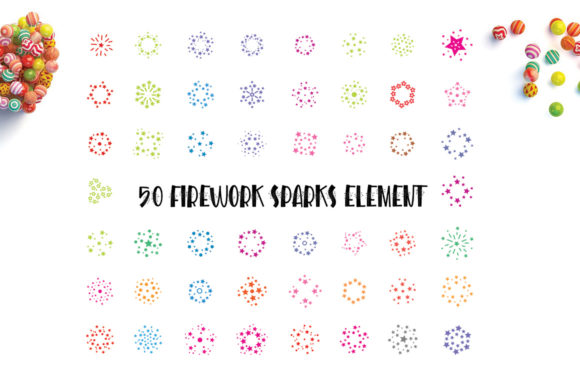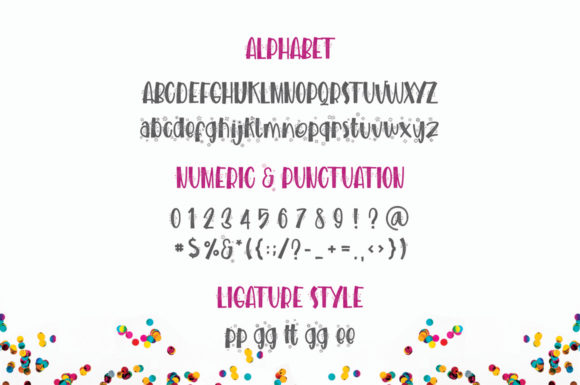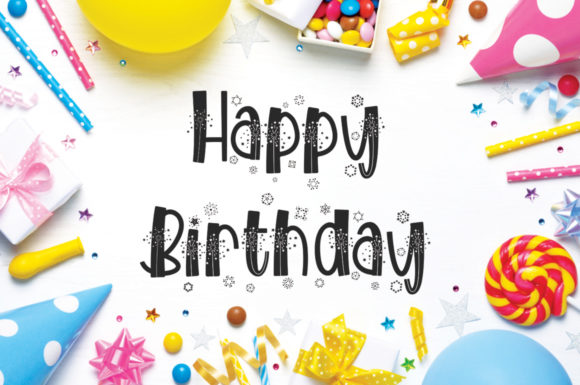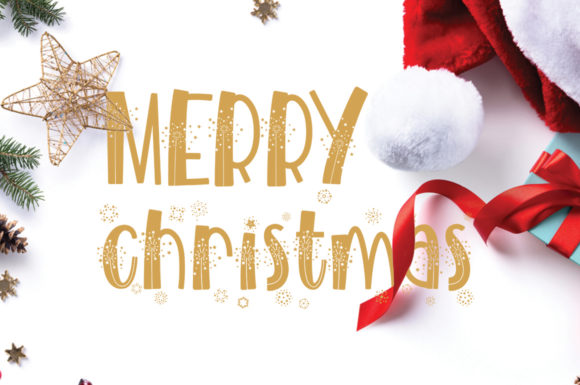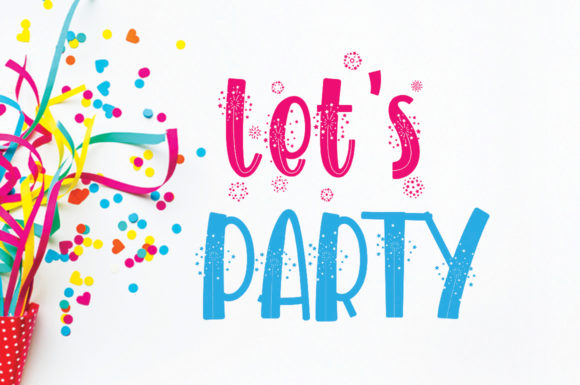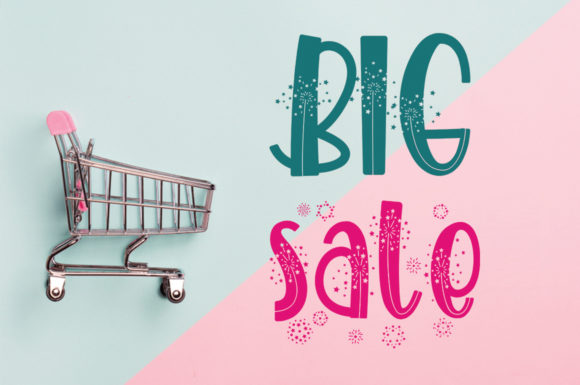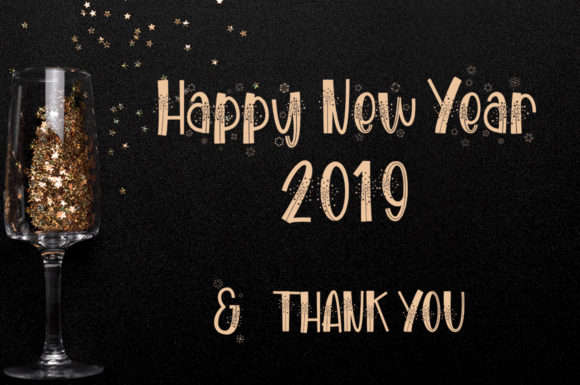
Blinkies Font
About Blinkies Font
Introducing “The Blinkies,” a cheerful handwritten font designed to infuse a fun and playful feel into your projects. This font is not just a typeface; it’s a design asset crafted with a delightful and whimsical touch, making it perfect for designs that need a sparkle of happiness.
“The Blinkies” stands out with its cheerful and handwritten style, creating a playful and lively vibe. Whether you’re working on invitations, posters, greeting cards, or any design that requires a touch of happiness, this font delivers with its fun and animated demeanor.
Its versatility allows “The Blinkies” to adapt seamlessly to different design contexts. Greeting cards and invitations designed with this font exude joy and celebratory energy. Posters and other promotional materials benefit from the font’s playful script, adding a whimsical touch to the overall design.
“The Blinkies” is a delightful choice for a wide range of applications, bringing a sense of happiness and charm to your projects. Its animated and handwritten feel makes it a design companion that adds a sparkle of joy to your creative endeavors.
In summary, “The Blinkies” is more than just a font; it’s a design asset that brings a cheerful and playful handwritten style to your projects. Embrace its fun and animated look for invitations, posters, greeting cards, and more, and let “The Blinkies” infuse your designs with a delightful sparkle of happiness.